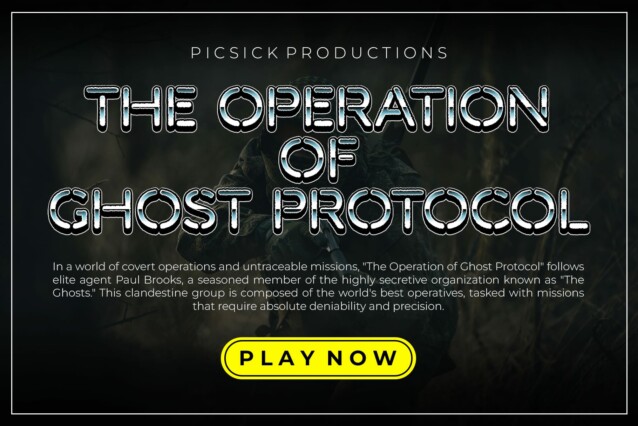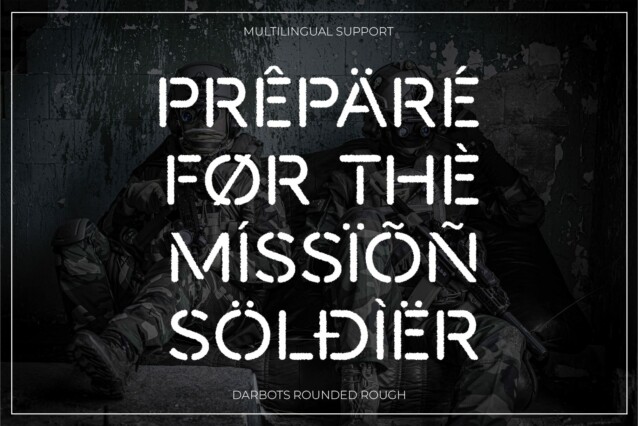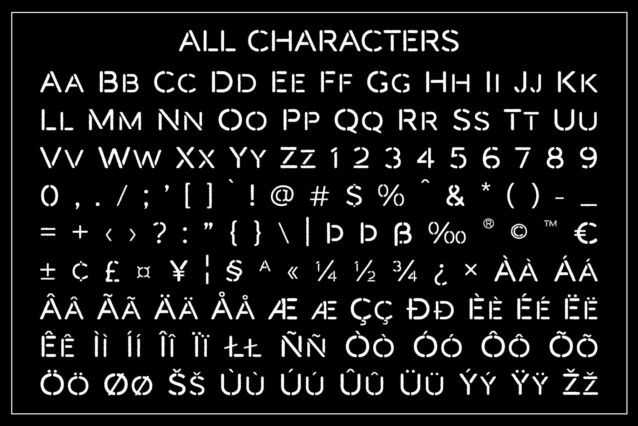
Darbots Rounded Rough Font
Darbots Rounded Rough Font is a modern sans-serif font that combines clean, geometric shapes with a stencil-inspired design and a rugged texture. The font’s stencil-like cutouts introduce a functional, industrial feel, while its rounded edges provide a soft and approachable look, blending modernity with a touch of rugged charm.